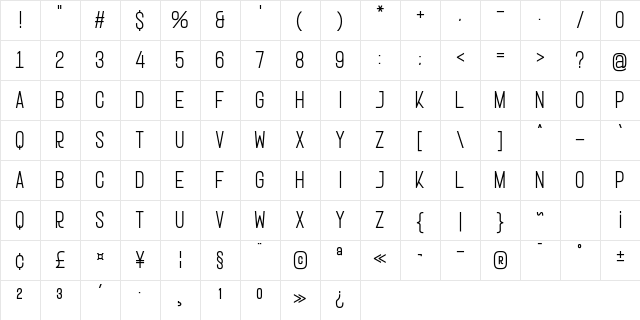
Ragnear is a composed and adaptable typeface that performs quietly and consistently across a wide range of design contexts. Its slender proportions lend an understated elegance to any composition.